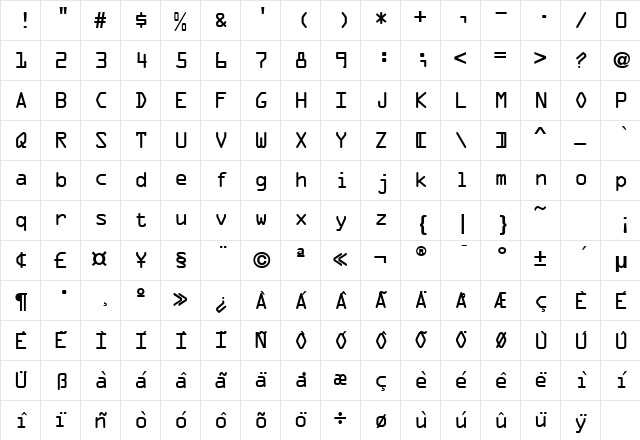
OCRATTRegular Regular
Design Context for OCRATTRegular Typeface
OCRATTRegular offers clean, dependable letterforms without strong stylistic allegiance, making it a practical choice for designers who need flexibility.